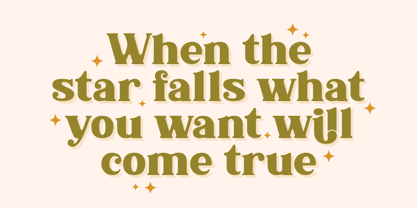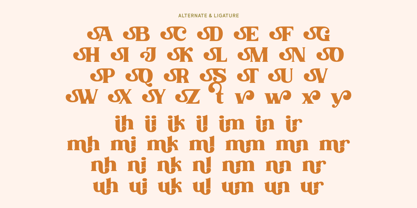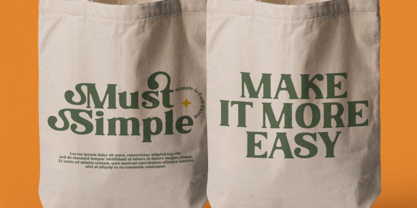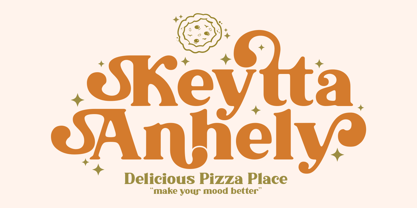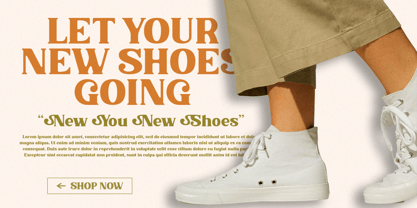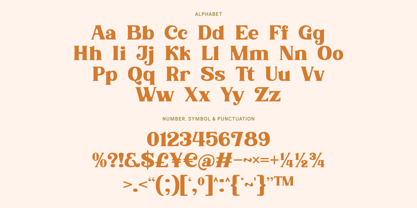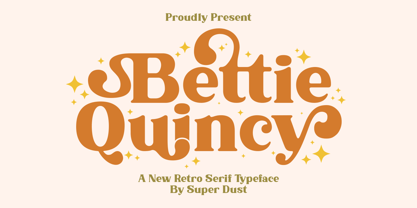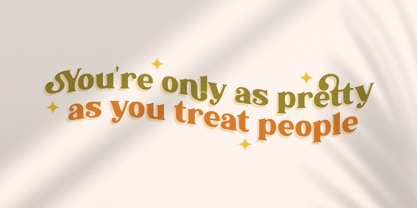
Bettie Quincy is a retro serif typeface that captures the timeless charm of vintage typography while embracing the creativity of modern design. Inspired by the bold advertising, nostalgic packaging, and elegant signage of the 60s and 70s, this typeface brings together classic sophistication and playful personality in one beautifully crafted font. Every letter is designed with distinctive serif details, smooth curves, and balanced proportions, creating a warm, expressive look that instantly stands out.
What truly makes Bettie Quincy special is its extensive collection of alternates and ligatures, giving designers the freedom to create unique letter combinations with effortless style. Whether you're crafting an eye-catching logo, elegant branding, retro-inspired packaging, editorial layouts, social media graphics, or stylish merchandise, the rich OpenType features allow every design to feel more custom, dynamic, and memorable. With just a few clicks, ordinary words transform into beautifully connected typography filled with authentic vintage character.
Despite its nostalgic influence, Bettie Quincy is carefully refined for today's creative needs. It offers excellent readability while maintaining a strong visual identity, making it equally suitable for both headlines and decorative text. The harmonious balance between bold serif forms and decorative alternatives creates a versatile typeface that can move seamlessly from playful to sophisticated depending on your creative direction.
Bettie Quincy shines across a wide variety of projects, including coffee shop branding, restaurant menus, artisan packaging, fashion labels, cosmetic products, wedding stationery, magazine covers, posters, album artwork, lifestyle branding, and handcrafted product collections. Its inviting personality adds warmth, confidence, and authenticity to every composition, making it an excellent choice for brands that want to leave a lasting impression.
Designed for creators who appreciate both craftsmanship and originality, Bettie Quincy celebrates the beauty of expressive typography without sacrificing functionality. Every alternate, ligature, and carefully sculpted letterform has been thoughtfully created to inspire creativity and elevate your work with timeless retro elegance.
Whether you're building a nostalgic brand identity or adding vintage flair to a modern project, Bettie Quincy delivers the perfect balance of classic beauty, artistic flexibility, and unforgettable character—making every word feel intentional, stylish, and full of personality.